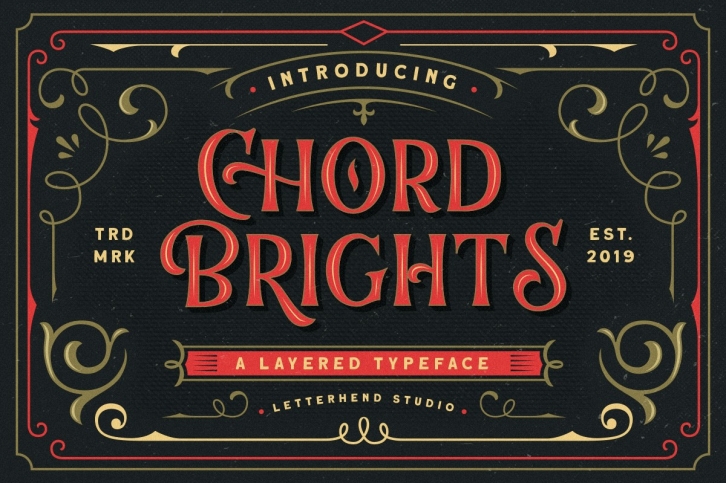
Chord Brights - A Layered Typeface FONT Download
Chord Brights - A Layered Typeface Font Download
Chord Brights is a beautiful font that was designed by Letterhend. It's a great choice for designers and creatives who need such a font. It was released on November 22, 2019 and the file size is 3.67 MB. Chord Brights may give a more youthful, expressive and casual look to your project. It is a very beautiful, refined, elegant, and high-quality font.